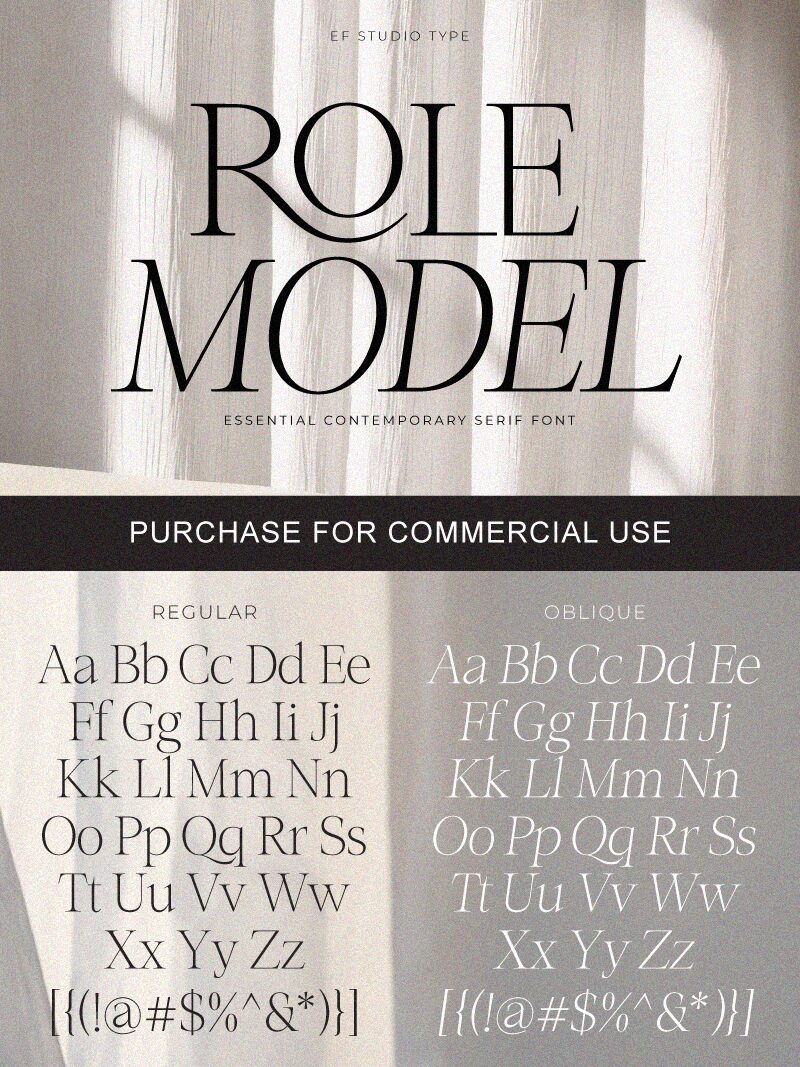
Role Model - Personal Use Oblique
Role Model Oblique font from Ef Studio is a free oblique serif font that exhibits elegance and modernity with refined curves, high legibility, and timeless appeal. This sophisticated typeface conveys confidence through its mirrored letters’ style, giving your visual communications a subjective voice that elevates their professional quality.
Make use of the font in brochures, magazines designs, posters, book covers, business cards and stationery designs. Achieve smooth website typography or eye-catching social media posts. Explore catalog typography ideas for both print and digital projects with Role Model Oblique!
Basic contemporary serif that have clean edges to reach modern feel